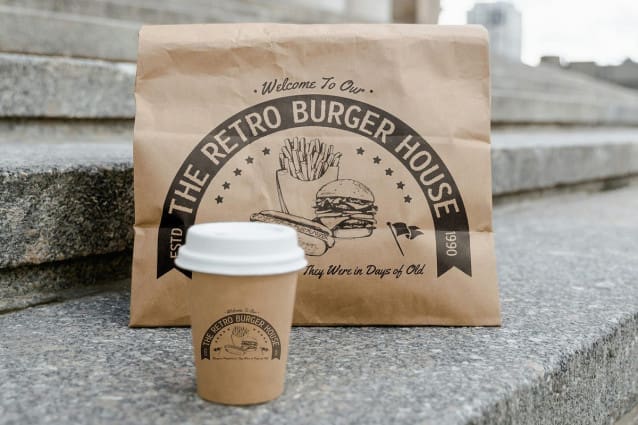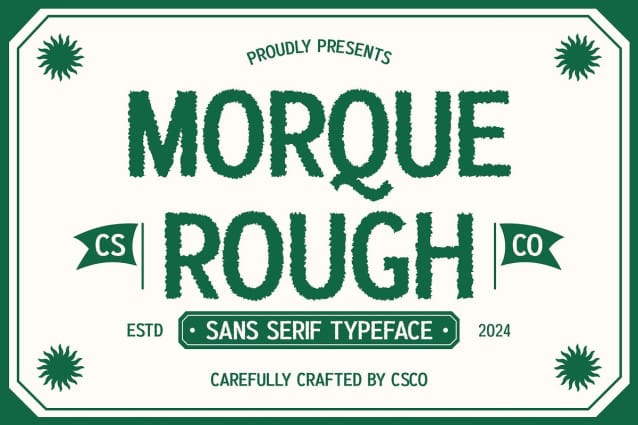
Morque Rough Font
Morque Rough Font is a modern sans serif font distinguished by its contemporary geometric shapes and a unique rough texture. Its clean lines and striking forms create a bold and dynamic appeal, making it a versatile choice for a wide range of design projects. The geometric design ensures a modern aesthetic, while the rough texture introduces an element of ruggedness, setting it apart from traditional fonts.
Distinctive Personality and Clarity This font’s rugged finish adds a distinctive personality, enhancing its visual impact without sacrificing clarity. Morque Rough is designed to stand out, making it ideal for branding, posters, and digital applications where strong impressions are essential. Whether used in headlines or body text, this font captures attention and communicates effectively, ensuring that your message is both clear and memorable.
Versatile Applications for Impactful Designs Morque Rough is perfect for projects that aim to convey a sense of strength and individuality. Its bold characteristics make it suitable for various applications, from eye-catching posters to innovative branding solutions. The font’s versatility allows it to adapt to different styles and contexts, ensuring that it meets the demands of modern design trends.